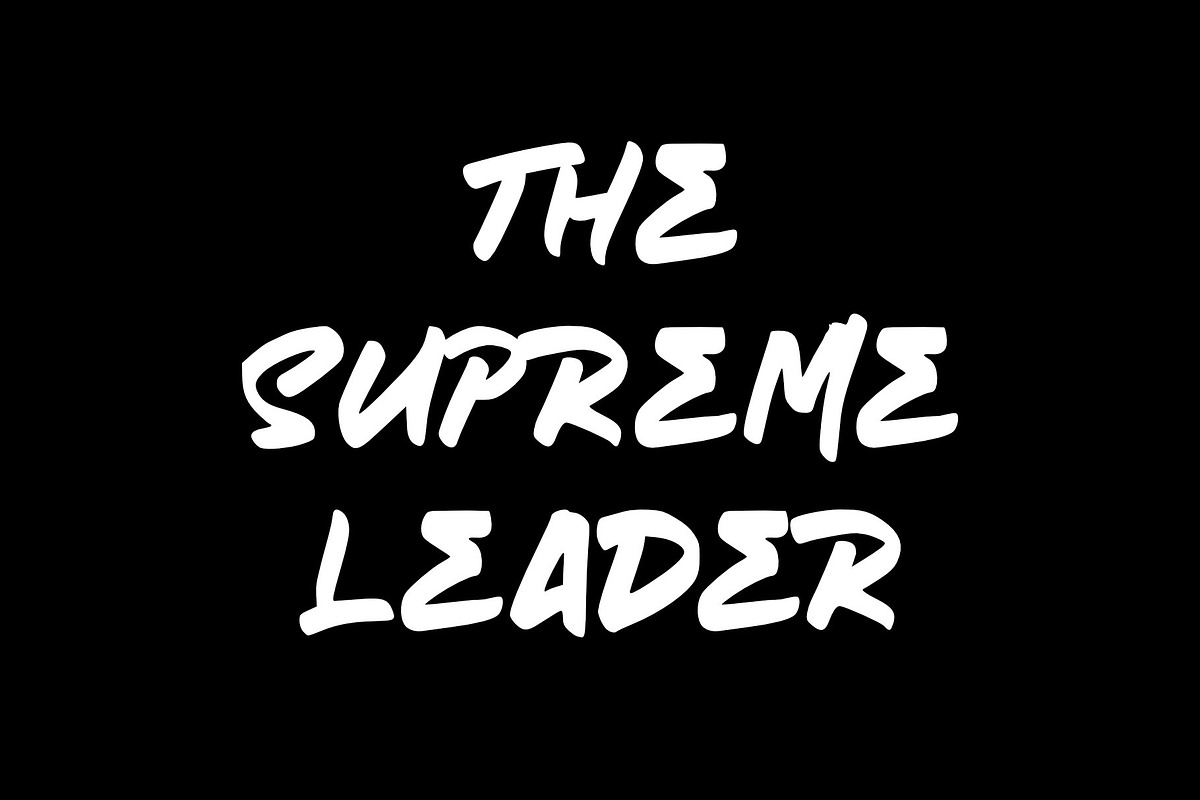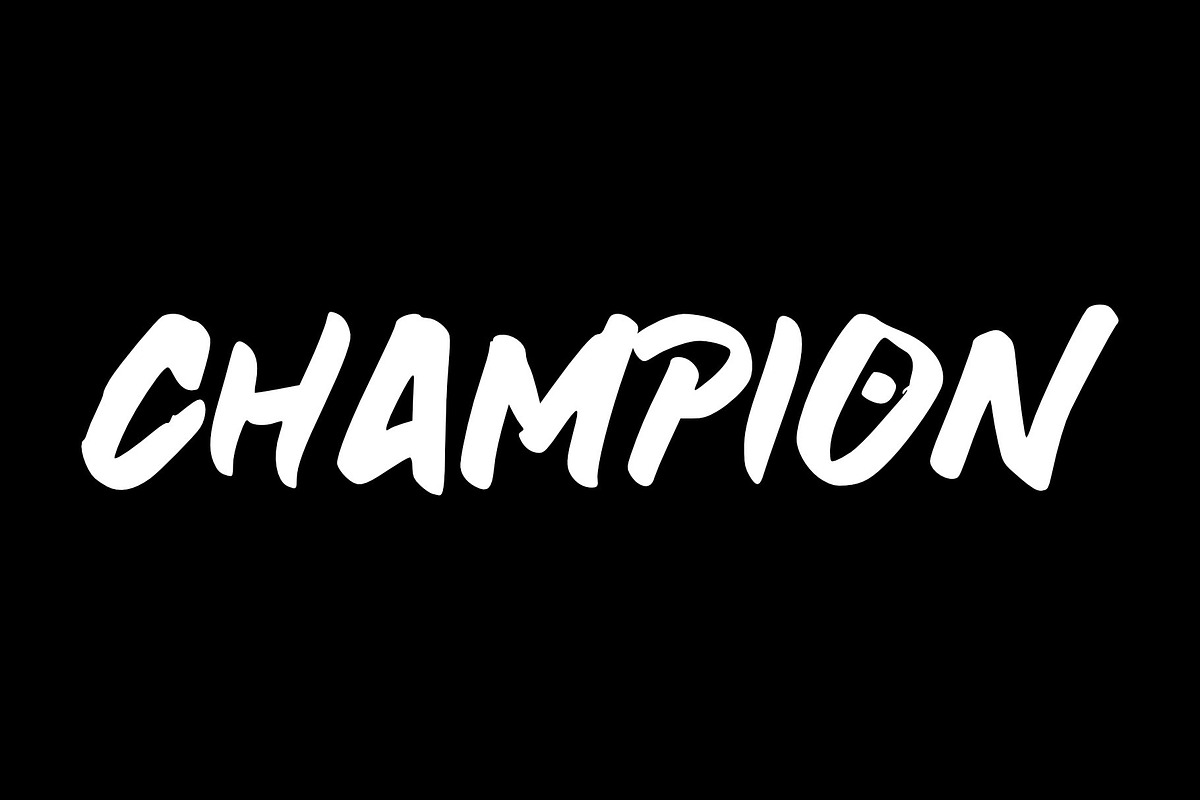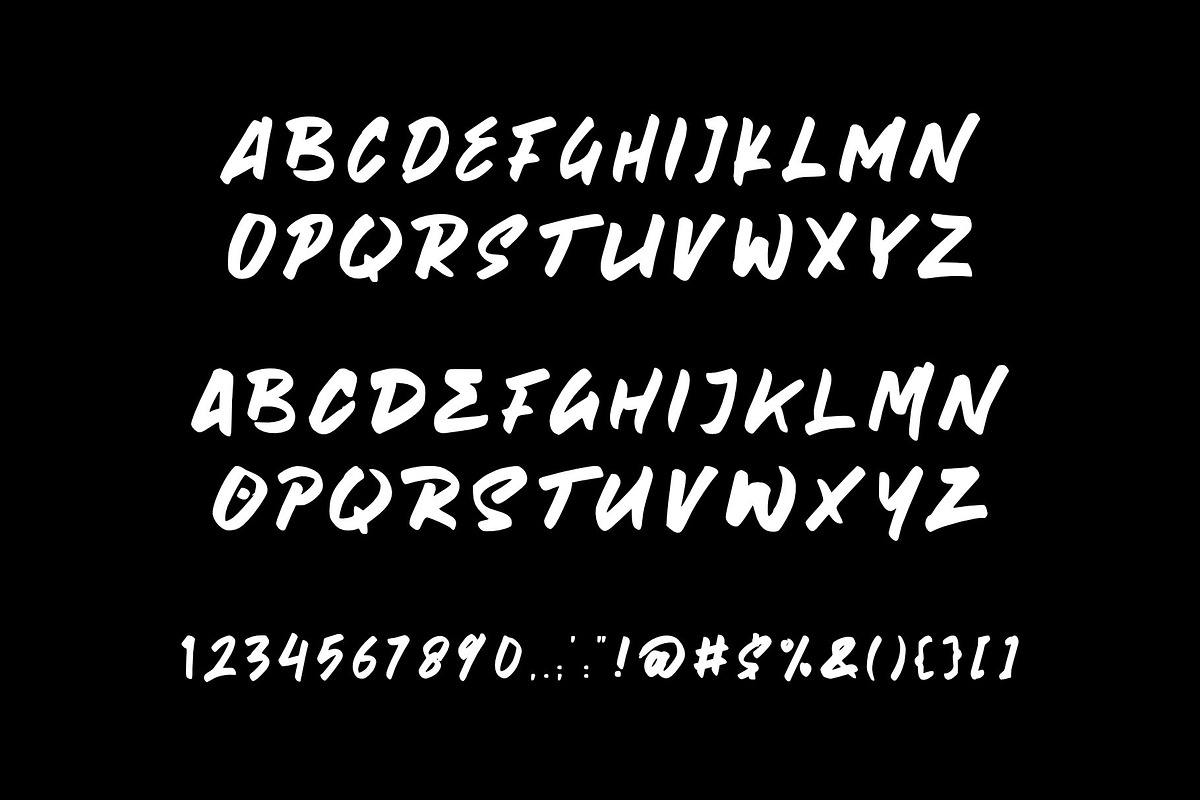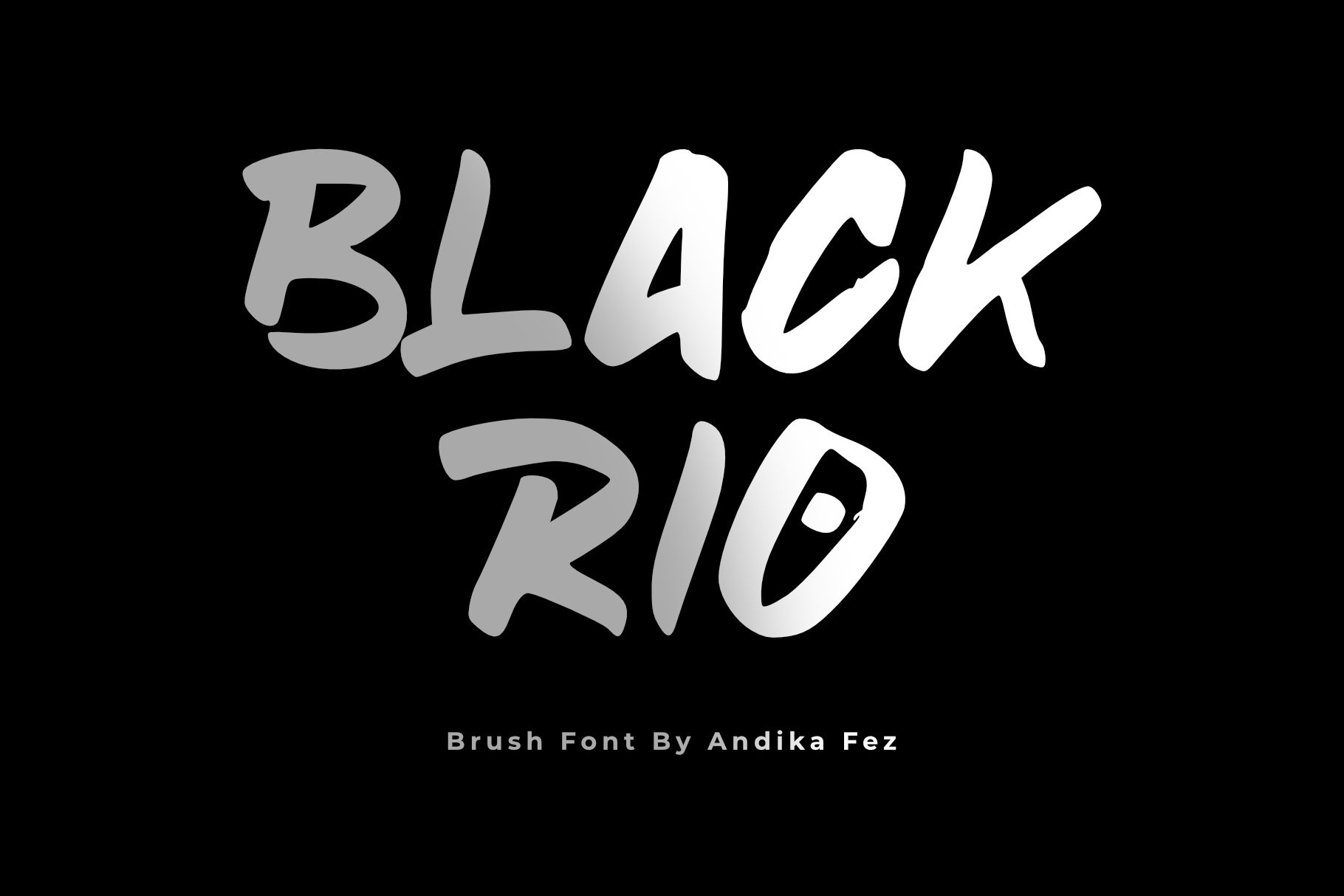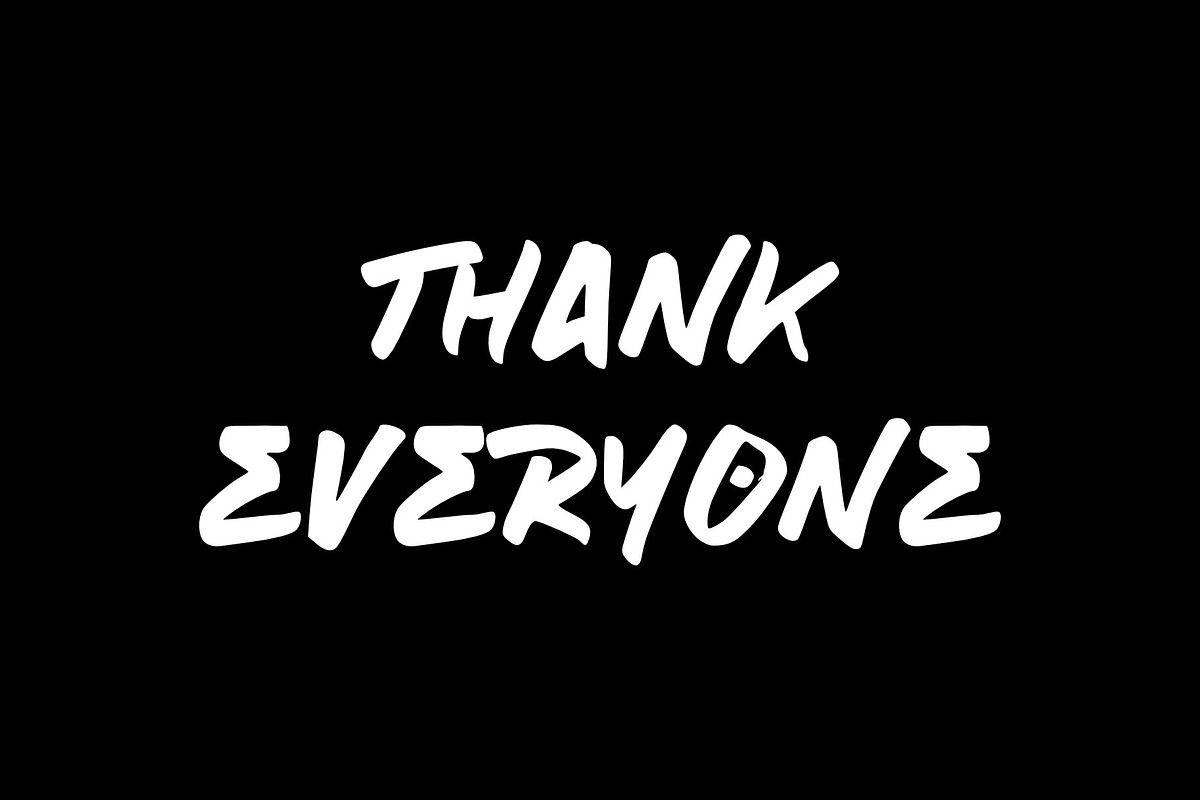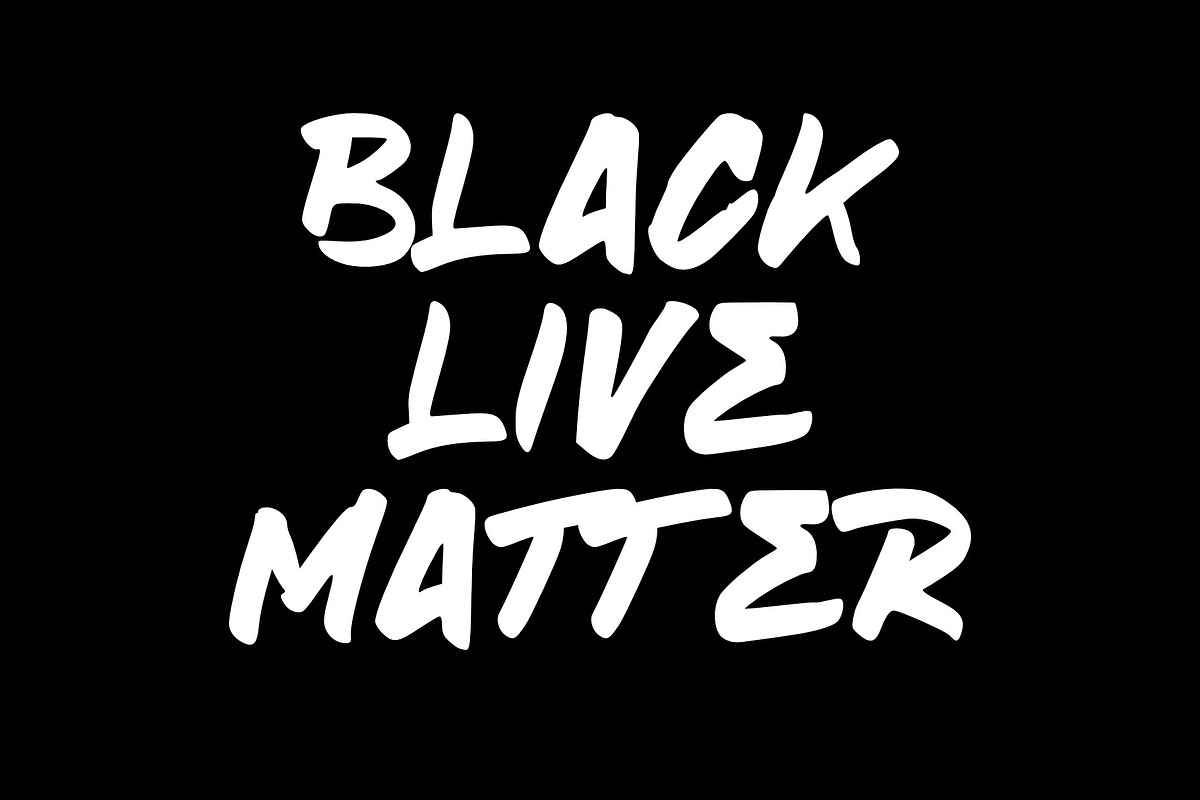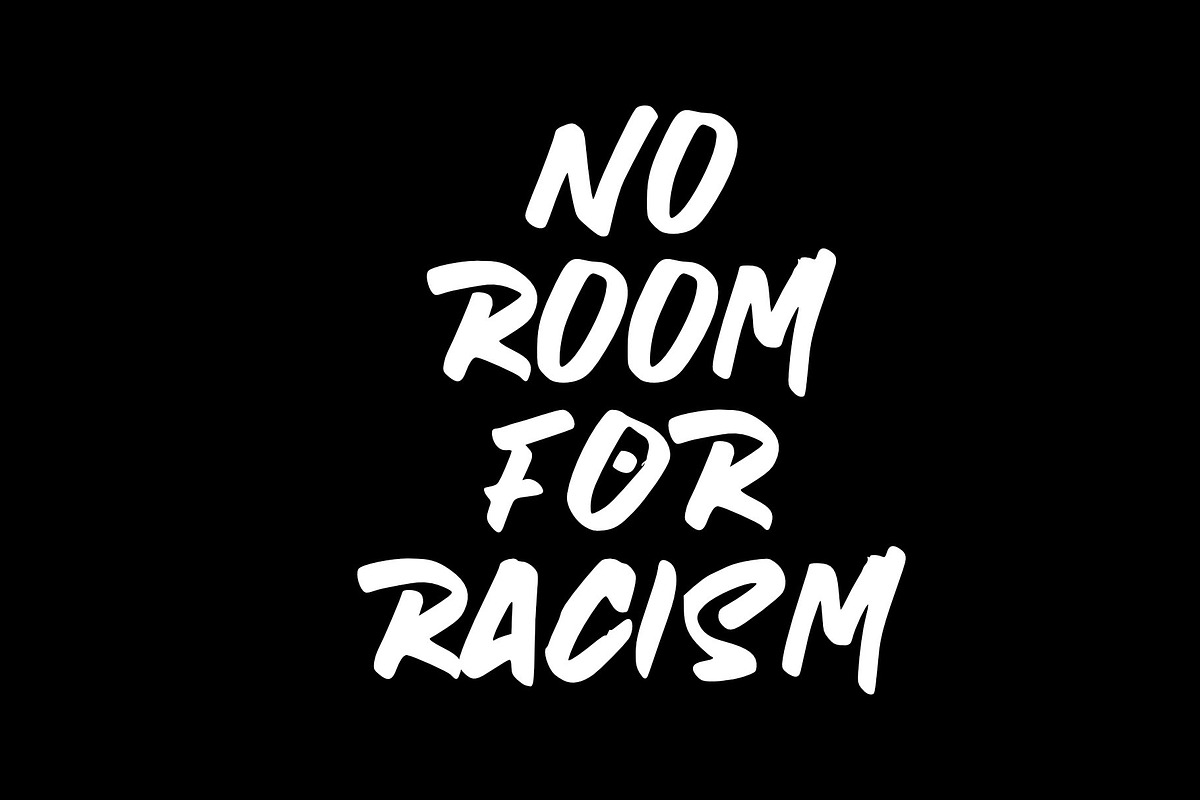
Clean Marker Font Black | BLACK RIO
I introduce the LEXA clean marker font black that I’m currently making. LEXA also includes which type of bold according to the preview.
My font on this one is LEXA clean marker font cover book.
is font that has a clean brush category, the advantage is that the light file doesn’t have a lot of notes.
About clean marker font brush
LEXA can also be called clean marker font black because they are easy to read. Because it is easy to read, LEXA is suitable for commercial use in companies that have projects. Examples of suitable projects from Bean.